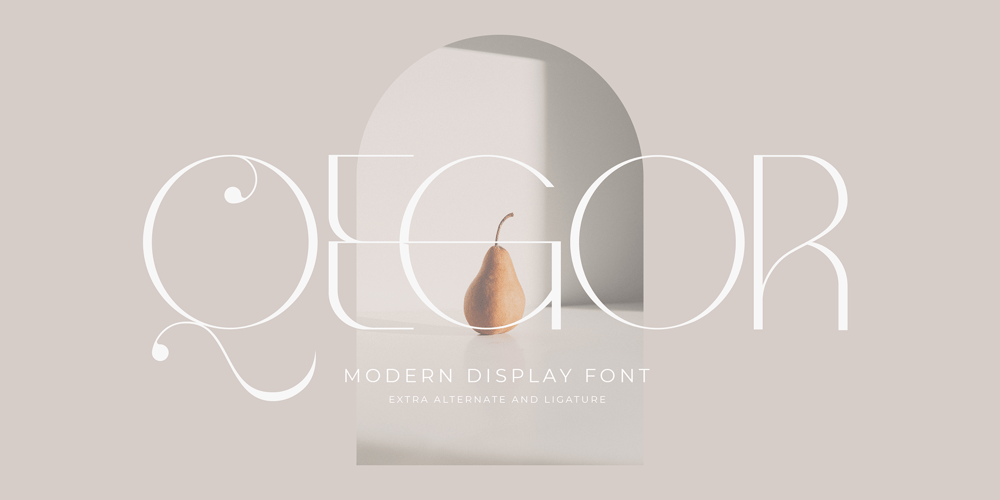
Qegor Font Family was designed by Heru Utama Putra and published by Letterena Studios. Qegor contains 2 styles and family package options. Qegor is a thin and classic serif font. Use it for any design projects that require a charming appearance!This font is PUA encoded which means you can access all of the glyphs and swashes with ease!